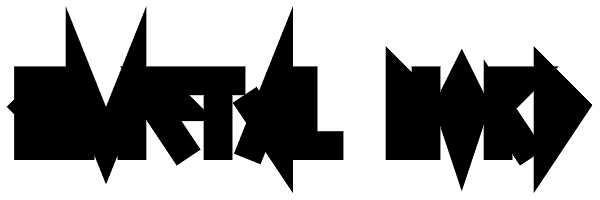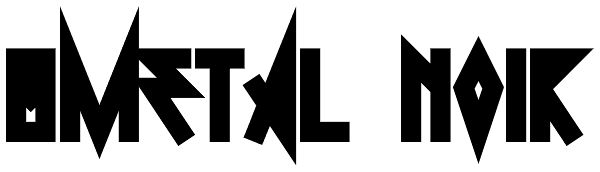
0Metal
Evil Type in its purest form Multiple Weights, Alternates, Ready for t-shirt production non-readable NORD weight
0Metal NORD
0Metal Medium
0Metal Black
0Metal Heavy
0Metal Noir
0Metal Light